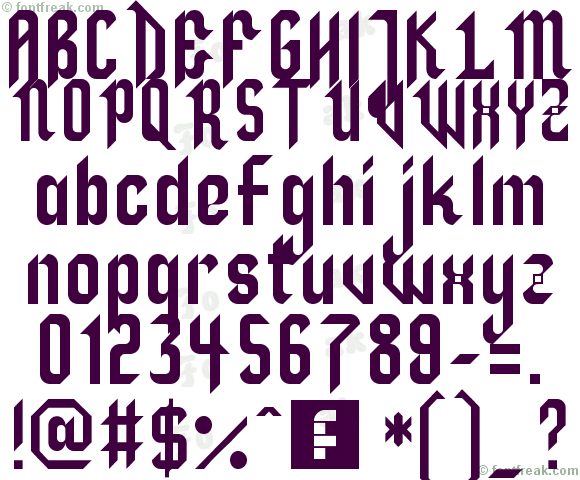
Zillah Regular
Zillah Regular by Erico Lebedenco is a striking display font that combines elements of both modern and traditional design. Characterized as a decorative typeface, Zillah Regular features unique letterforms that draw attention with their artistic flair. The font exhibits a medium stroke weight and a moderate contrast, which gives it a sense of elegance while ensuring readability. The spacing between the letters is well-calibrated, allowing for a harmonious flow that captivates the viewer. Decorative elements, such as the distinctive curves and sharp angles, add to its visual intrigue, making it a standout choice for various design projects.
Ideal for a range of applications, Zillah Regular shines in wedding invitations where its artistic touch can convey romance and elegance. It is equally suitable for movie posters, capturing the essence of a film with its bold and engaging presence. Restaurant menus can benefit from this font's unique character, helping to create a memorable dining experience through visually appealing typography. Additionally, content creators looking to enhance their branding will find Zillah Regular an excellent choice for social media graphics and promotional materials.
Targeted toward graphic designers, small business owners, and content creators, Zillah Regular offers versatility and style. Its unique aesthetic can elevate any project, making it a must-have in your font library. With the Zillah Regular font free download, you can easily incorporate this exceptional typeface into your designs, enriching your creative toolkit. Its distinctive look and functionality set it apart from other fonts, making it a valuable asset for those who seek to make a bold statement in their visual communications. Whether for personal or professional use, Zillah Regular is sure to leave a lasting impression.